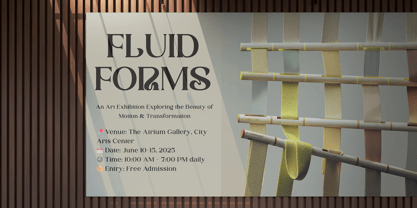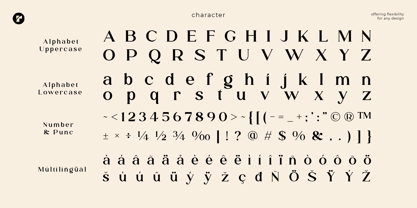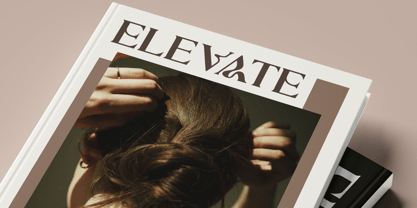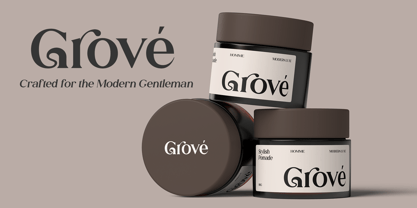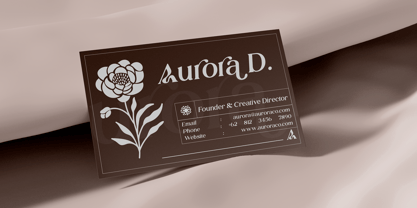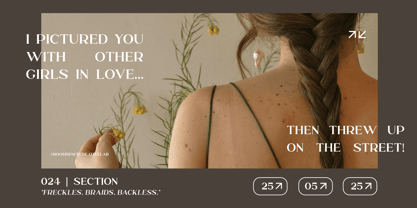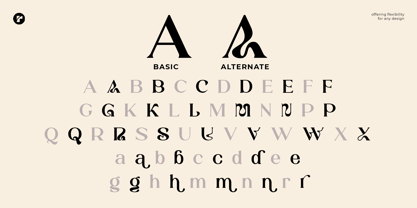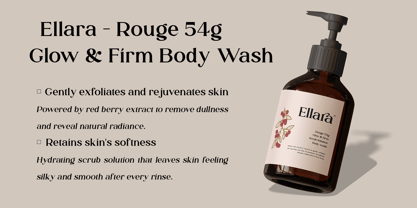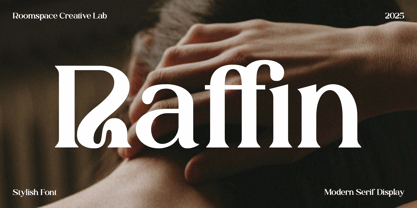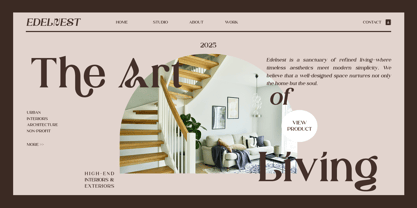
Raffin
The Raffin Font Family was designed by Bakhrudin Ja'far and published by Jafar07. Raffin contains 2 styles and family package options. More about this family
Raffin is a modern serif font that seamlessly blends sculptural elegance with typographic clarity. It is built for creatives and brands that aim to appear poised yet approachable, commanding yet soft. Raffin’s design flows with a sophisticated rhythm, using pronounced vertical stems and gracefully tapered curves to create a visual tension that feels both timeless and fresh. Its energy is quiet but confident never overstated, yet undeniably striking.
This font’s charisma lies in its refined, high-contrast structure. The letterforms are slightly condensed with sculpted terminals that give it a clean editorial flavor. Though rooted in traditional serif DNA, Raffin’s stylized cuts and deliberate quirks modernize its character, allowing it to live comfortably in both minimalist luxury and soft, lifestyle-driven aesthetics. It is perfect for industries ranging from wellness and skincare to high-end fashion, boutique branding, editorial layouts, and artisanal packaging.
Whether it’s on a product label, in a lookbook, or leading a website header, Raffin brings harmony and hierarchy to your typography. It balances expression with restraint, making it a go-to for elegant design systems where every element matters.